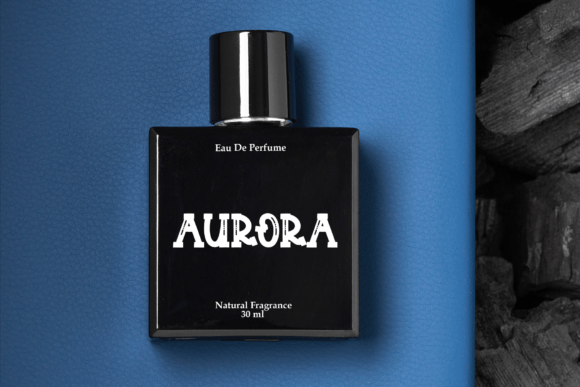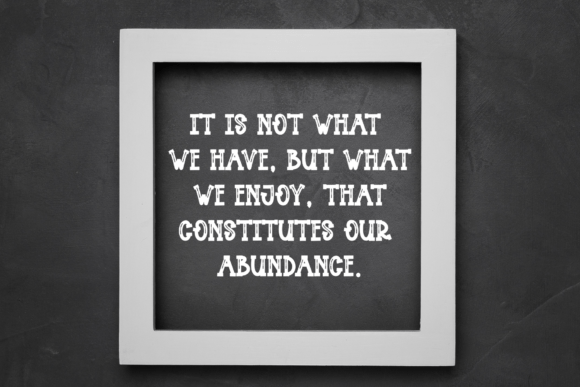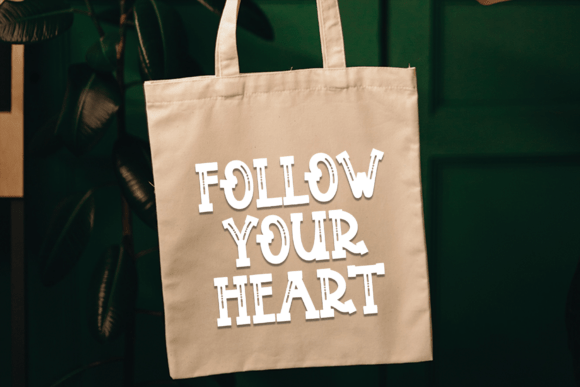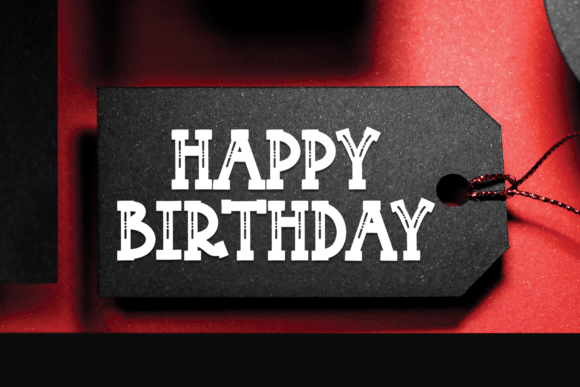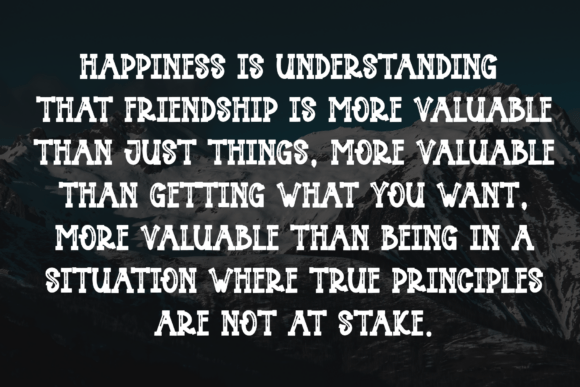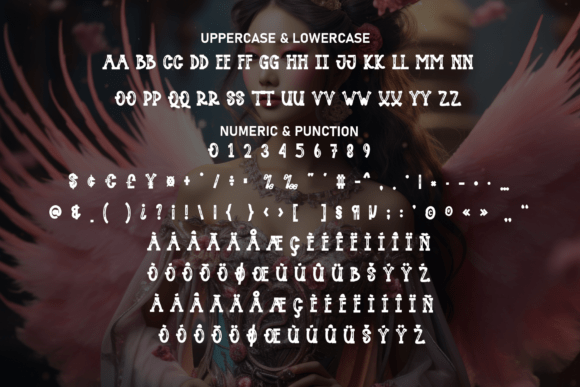
Introduction to Cupid Queen Font
Introducing a charming and personable handwritten display font – beautifully designed to exude sweetness and friendliness with every stroke.
With its delightful and playful characteristics, it captures an ideal aesthetic for crafting wedding invitations, personalizing heartfelt cards, or enhancing any design project that requires a dash of fun and joy Imbue your creative works with an inviting and amicable appeal using this captivating font.
Key Features of Cupid Queen Font
Why Choose Cupid Queen Font?
Cupid Queen Font offers exceptional quality and versatility, making it a valuable addition to your design toolkit. Whether you’re creating for personal projects or commercial use, Cupid Queen Font delivers professional results.